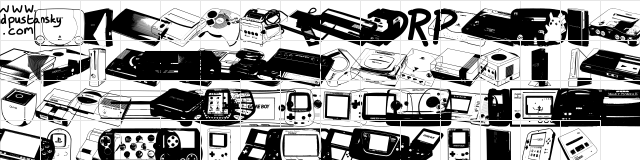
Console Wars Console Yourself Regular
Design Context for Console Wars Console Yourself Typeface
Console Wars Console Yourself is a composed and adaptable typeface that performs quietly and consistently across a wide range of design contexts.